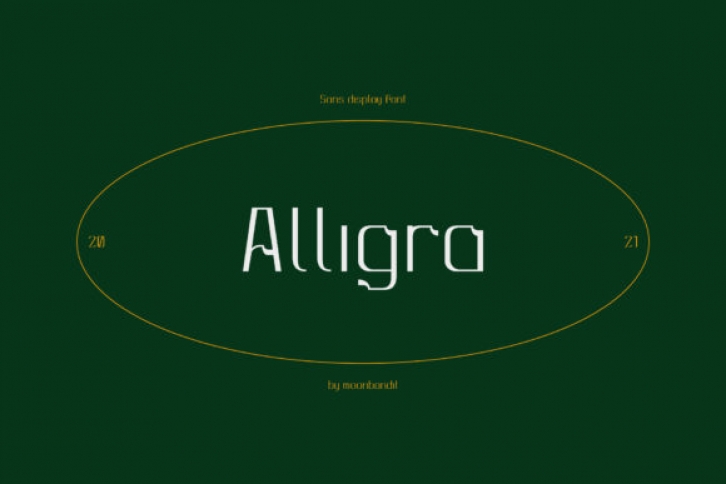
Alligra is a modern geometric display font. Expertly designed to make your creation look out of this world, this font will look gorgeous on a variety of ideas.